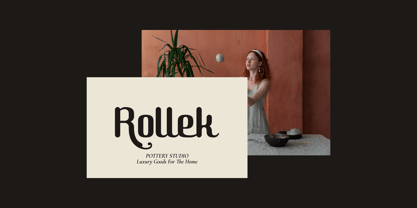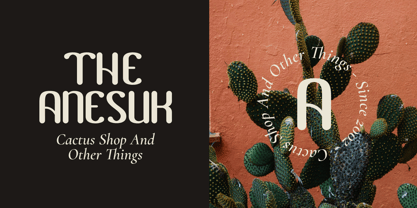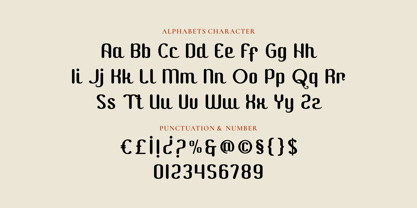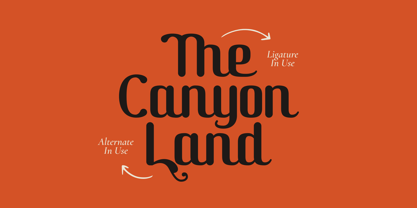
Eugod Guedilk
von Imoodev
Die Schriftfamilie Eugod Guedilk wurde von Aulia Savira Putri entworfen und von Imoodev veröffentlicht. Eugod Guedilk enthält 1 Stile.
Step back in time and infuse your designs with a dose of nostalgic charm with Eogud Guedilk, a bold and groovy display font. Drawing inspiration from the free spirited aesthetics of the 70s and the elegant curves of Art Nouveau, this typeface is designed to make a statement. Eogud Guedilk is defined by its unique letterforms, which feature graceful curves, flowing lines, and curved terminals and ornamental swashes, which visually echo the flowing, organic rhythm of Southeast Asian scripts like Javanese. This unique inspiration gives each character a confident yet friendly personality, blending playful charm with sophisticated elegance. Eogud Guedilk ideal for a wide range of applications, including branding projects, logo design, eye-catching headlines, magazine layouts, poster design, social media graphics, packaging, and invitations. Its distinctive style is perfect for brands in the pottery, fashion, artisanal goods, cactus shops, or any business looking for a unique, warm, and memorable aesthetic.